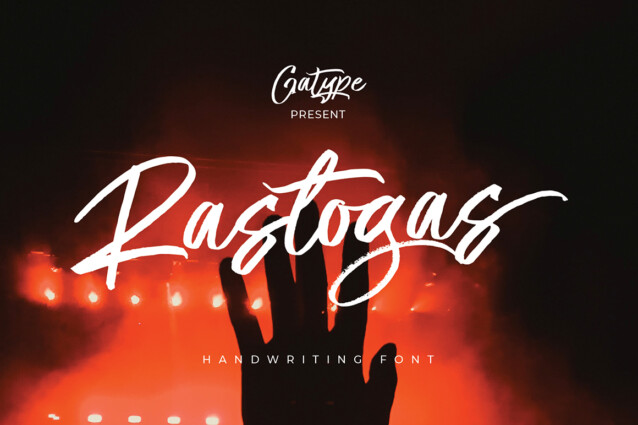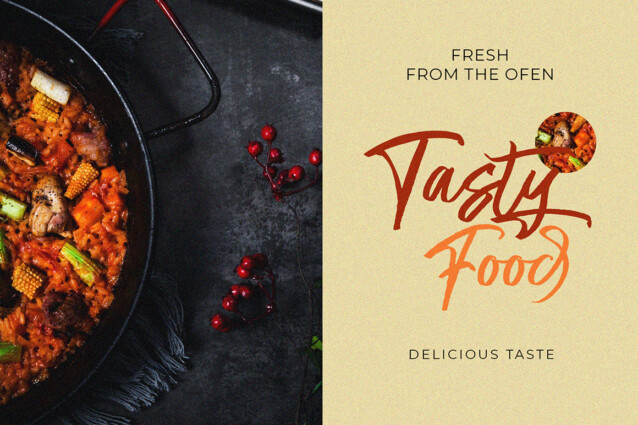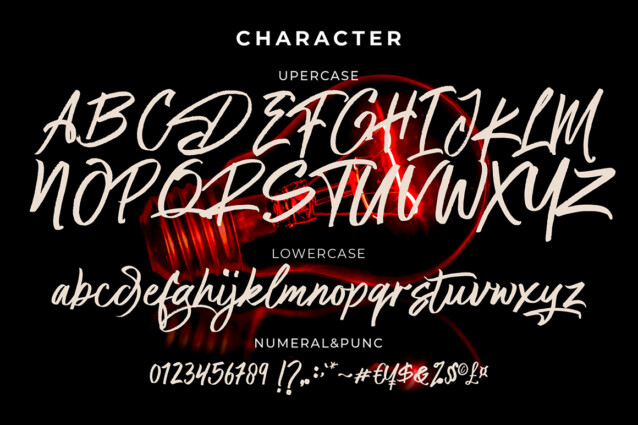
Rastogas Brush Font
Rastogas Brush Font is tightly spaced and retains all brush imperfections. It has a nice contrast with the opaque and transparent parts. This will give your work an authentic and realistic brush look!
It’s the ultimate font for a fresh new branding look and creates eye-catching designs for ads, social media posts, product packaging, fashion apparel, posters & more. This font is PUA encoded which means you can access all of the amazing glyphs and ligatures with ease!